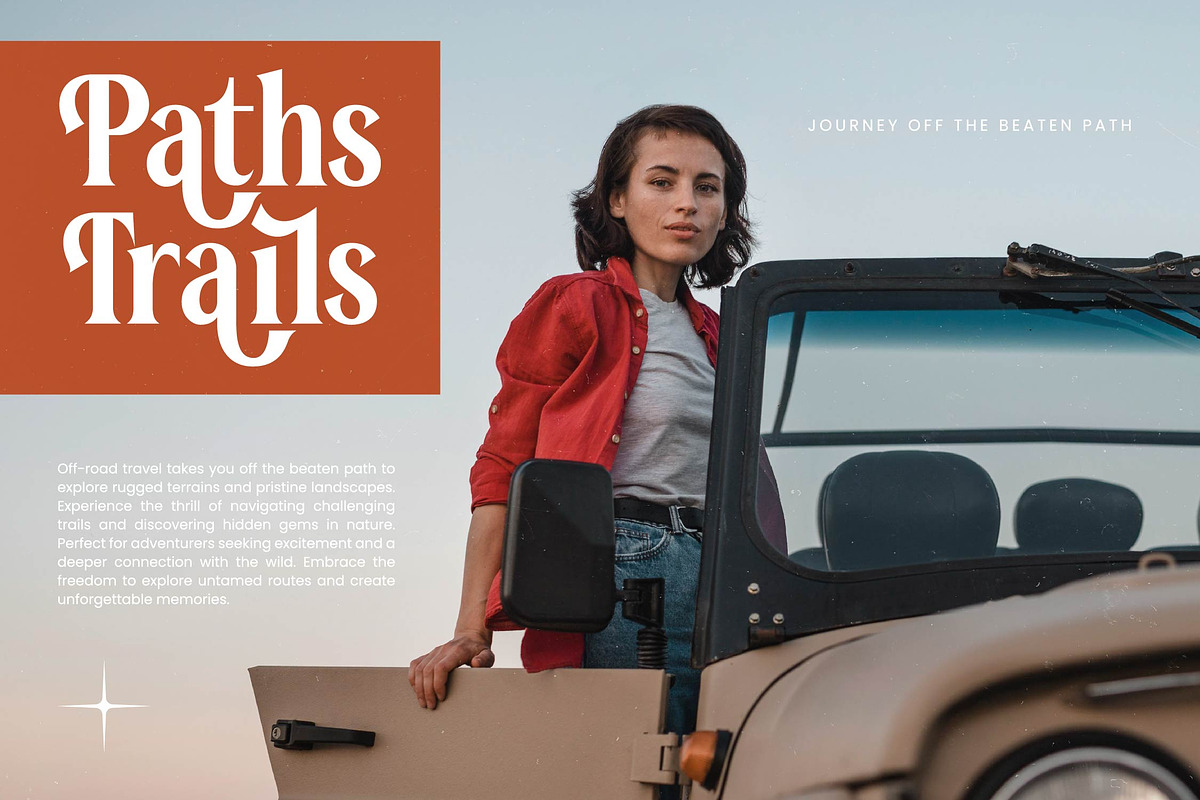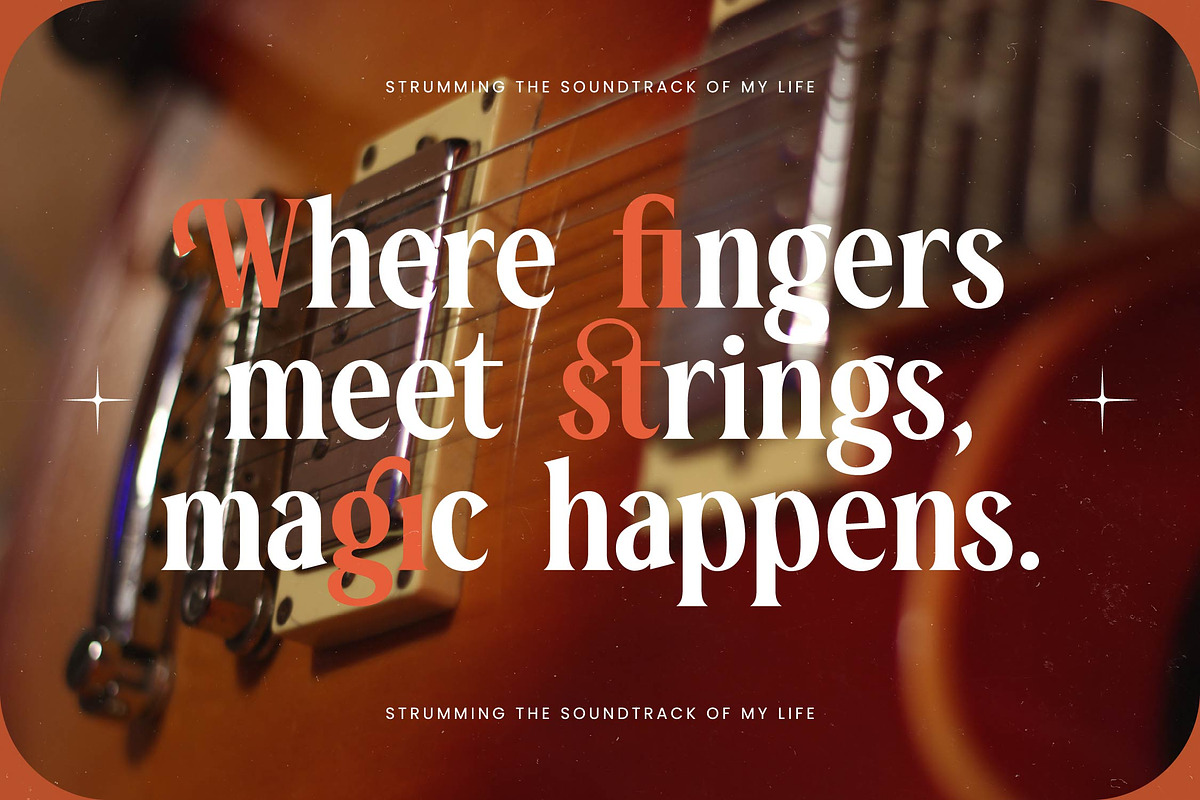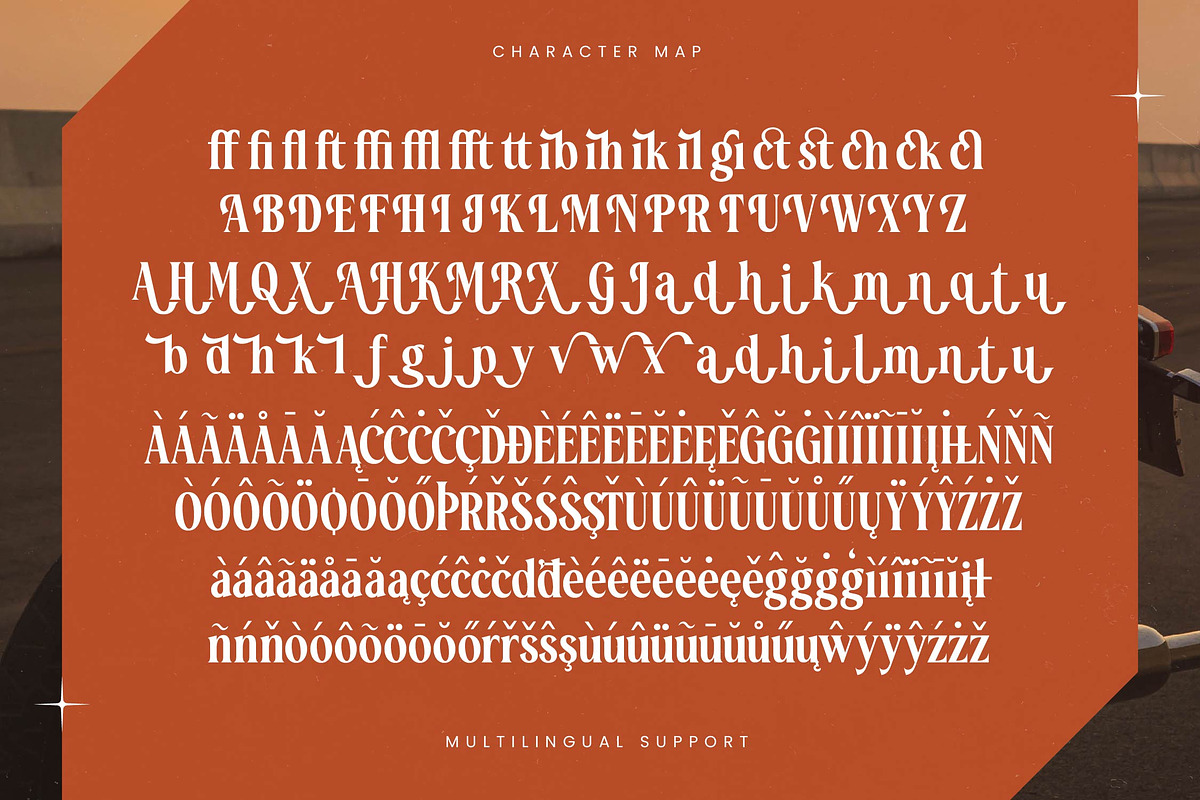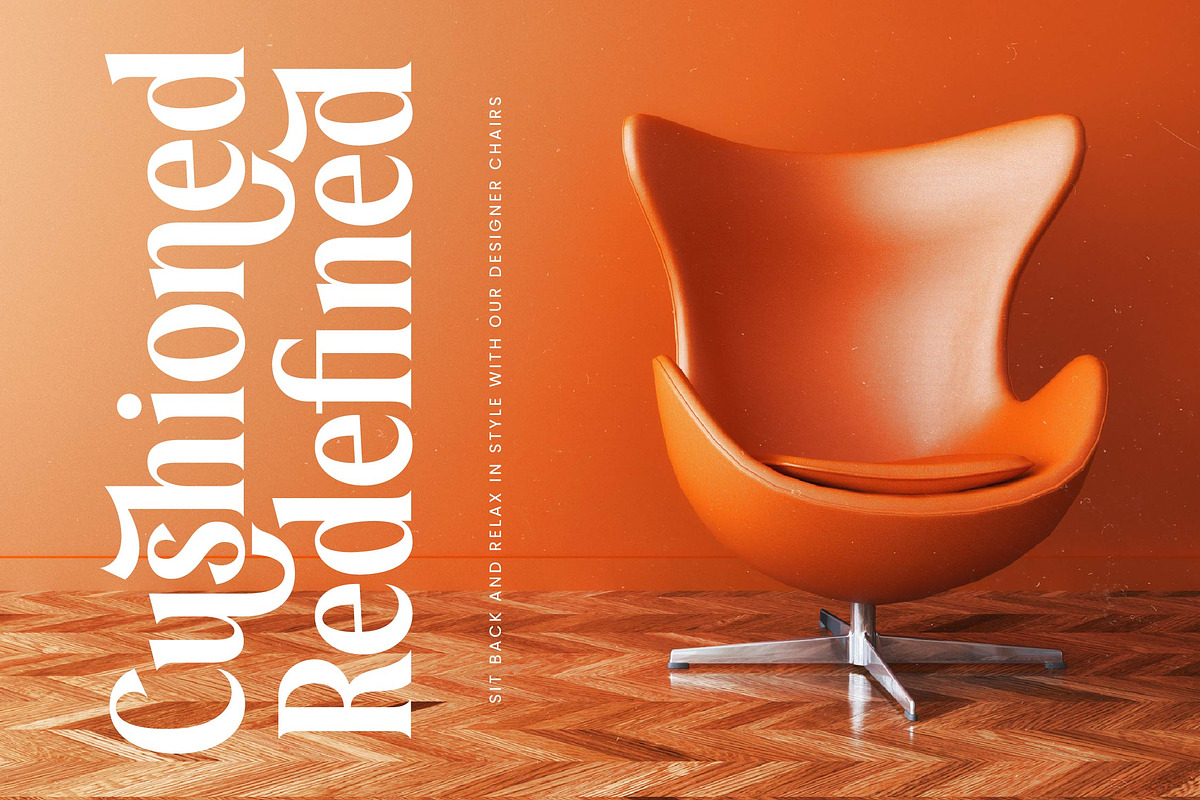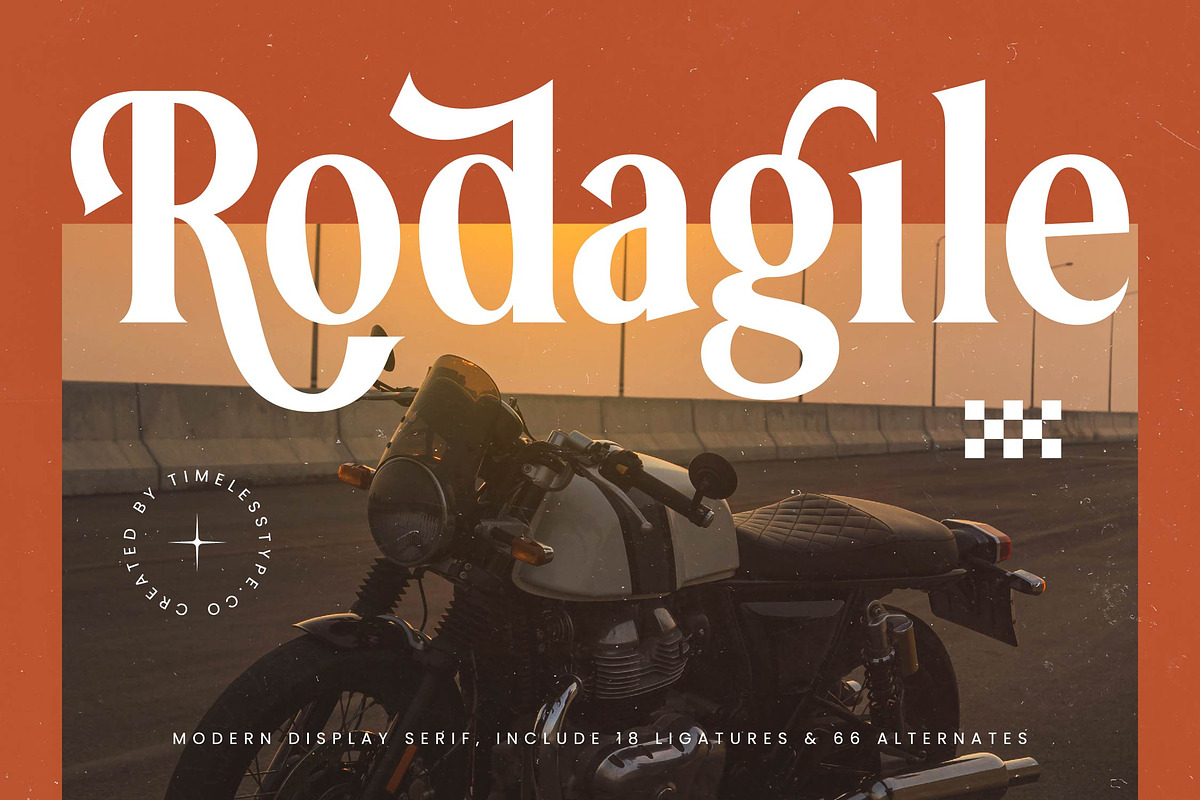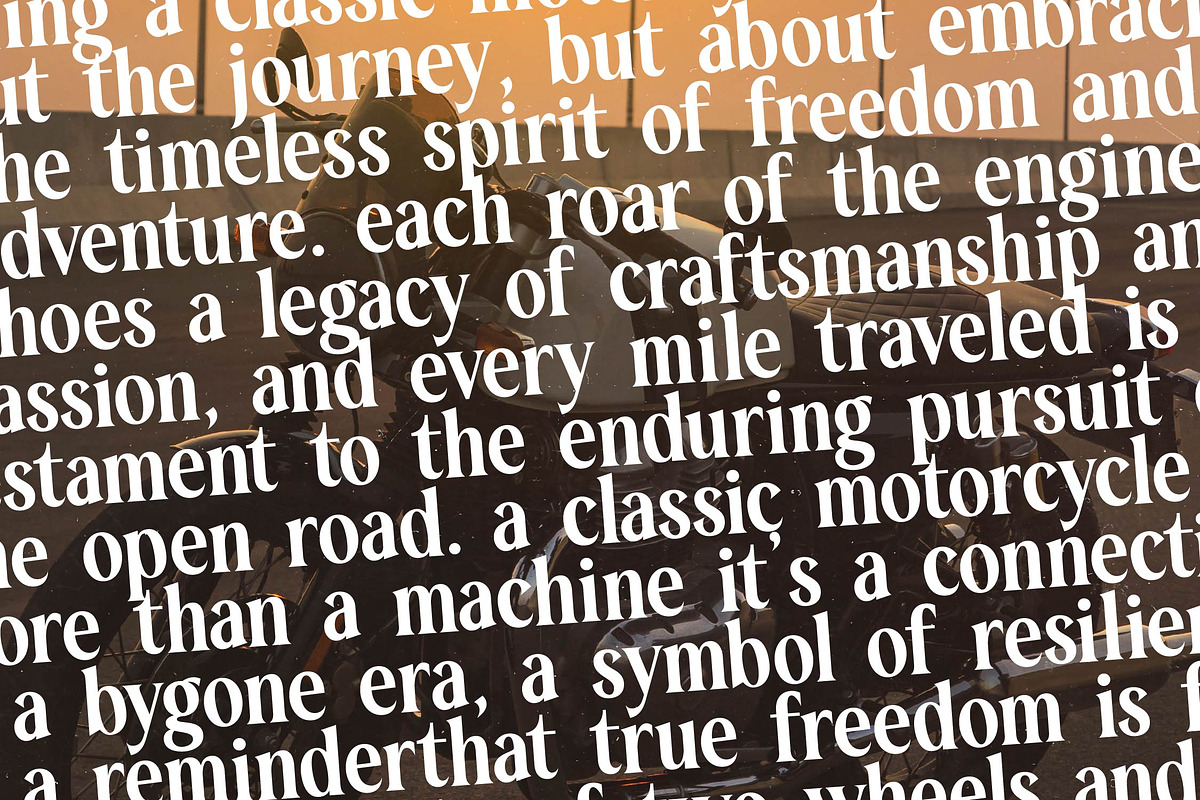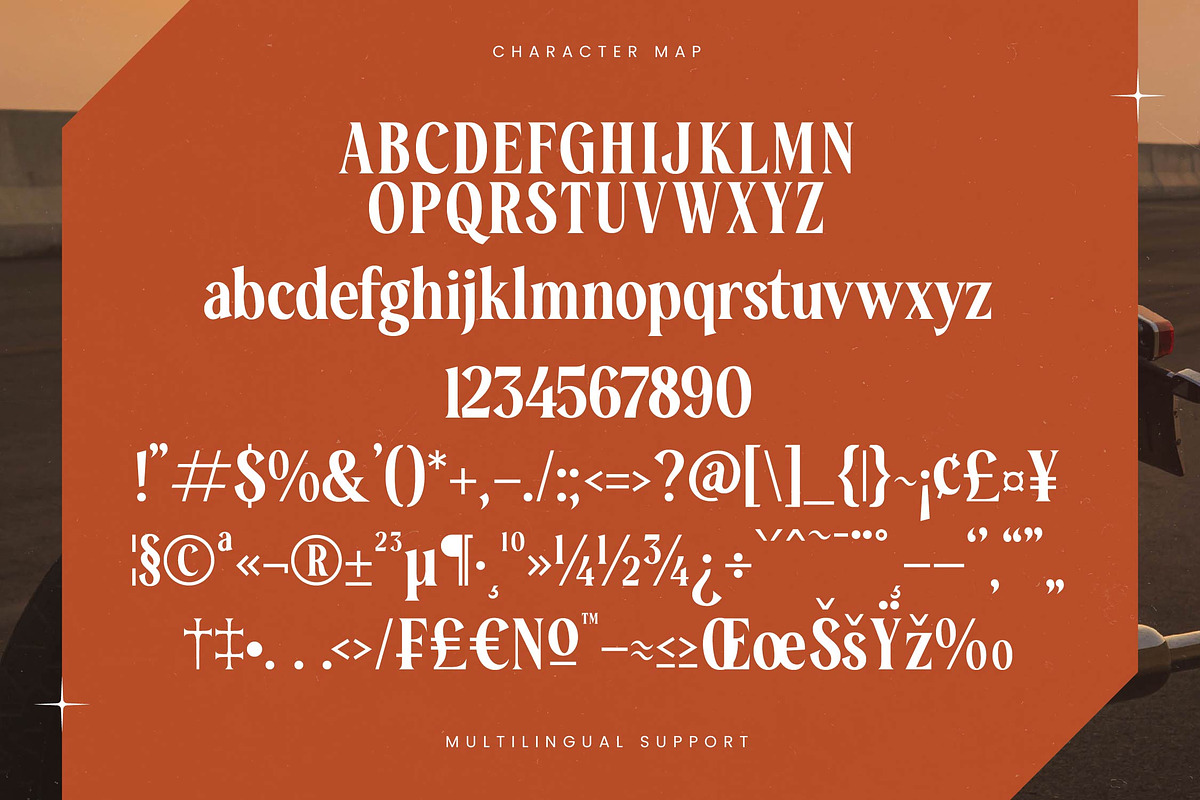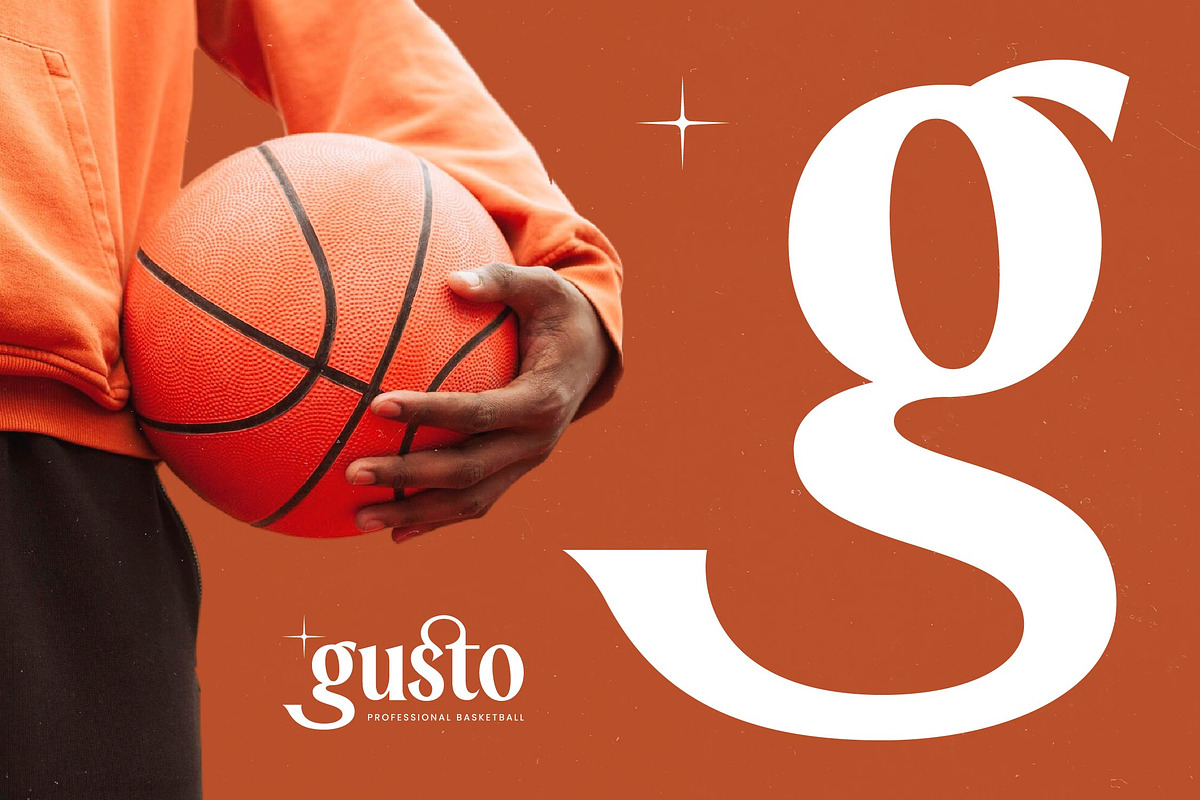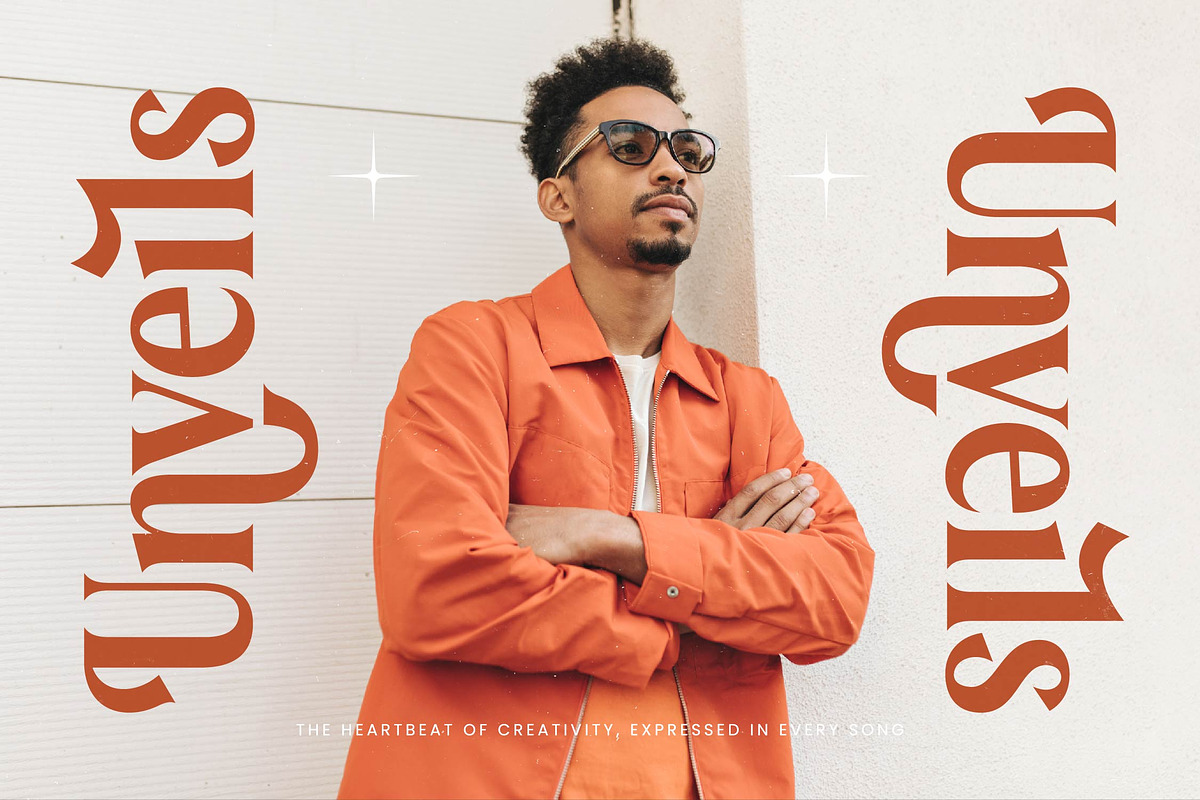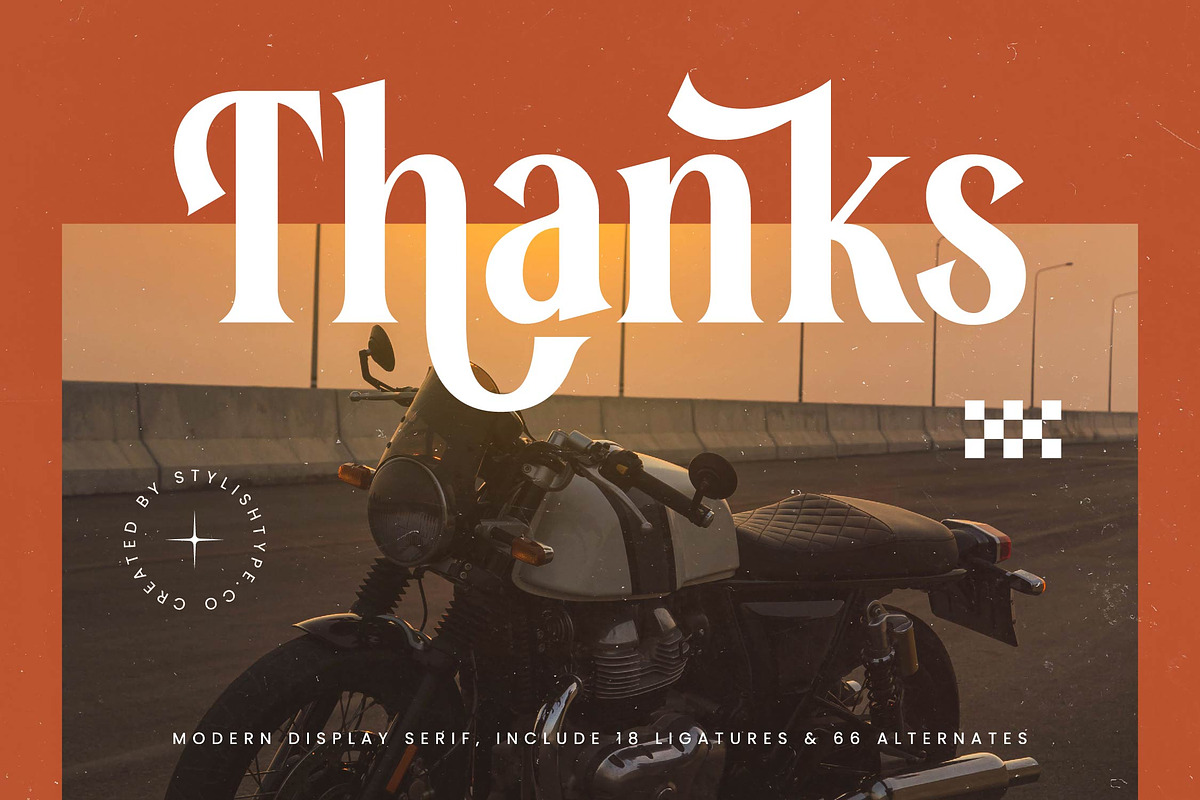
Rodagile Modern Display Serif
Rodagile - Modern Display Serif , from Timelesstype.Co , Rodagile captures the essence of timeless elegance with a bold, contemporary twist that commands attention effortlessly. It is a typeface designed for those who seek to leave a lasting impression through sophisticated and soulful visual storytelling.
Drawing inspiration from the golden era of editorial design and the spirit of open-road adventures, this font evokes a sense of freedom and high-fashion luxury. Its curves mimic the flowing lines of a classic motorcycle against a setting sun, blending nostalgia with a forward-looking aesthetic.
This modern serif display exudes confidence through its high-contrast serif strokes and refined terminals, making it an essential tool for luxury typography. It functions as a powerful editorial font that balances delicate details with a heavy-hitting branding impact.
Aligning perfectly with the modern serif trend, this typeface answers the call for character-driven typography in today's digital landscape. It stands at the forefront of editorial display fonts, offering a unique voice that cuts through the noise of generic minimalism.
Perfect for a wide array of creative projects, it excels in high-end logo design and comprehensive branding systems where personality is key. Designers will find it indispensable for editorial layouts, premium product packaging, romantic wedding stationery, and avant-garde fashion campaigns.
The font is packed with creative possibilities, including a rich set of ligatures, alternates, and decorative swashes that allow for custom-tailored lettering. With full multilingual support and a wide range of international characters, it ensures your message resonates globally with premium precision.
- Ligature 18 Alternate 66